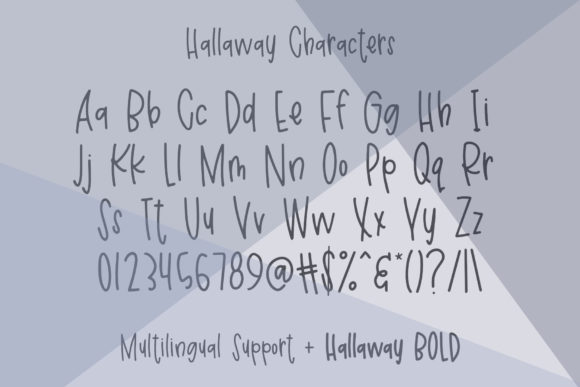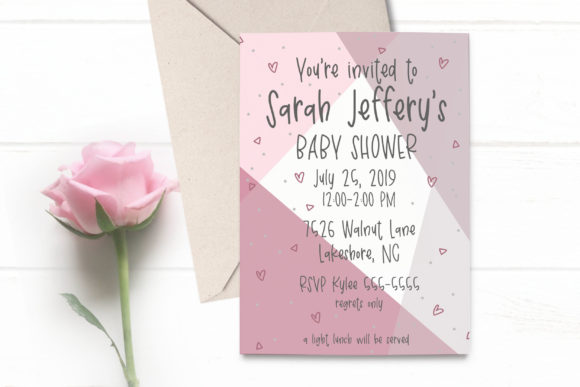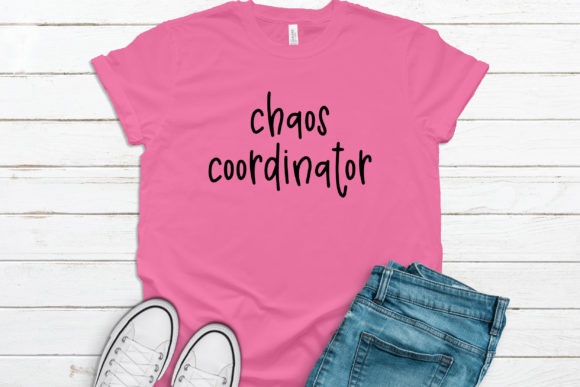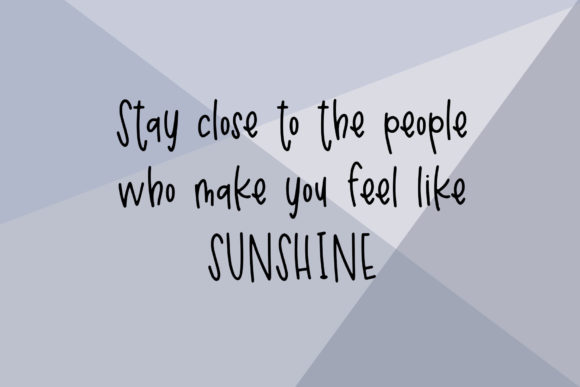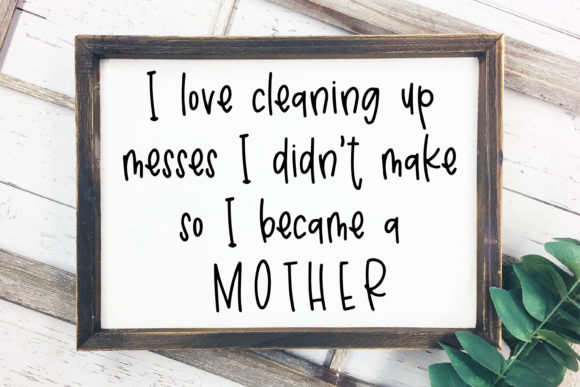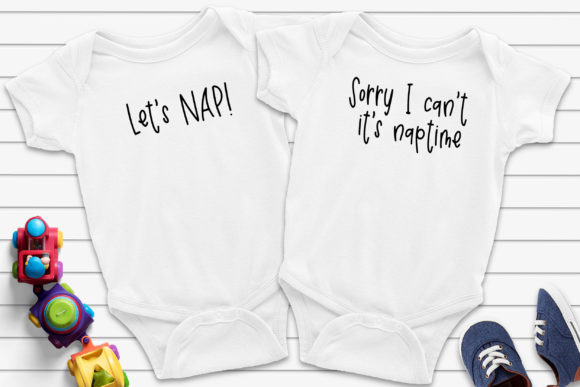
Introducing Hallaway Font: The Perfect Addition to Your Design Arsenal
Are you tired of using the same old fonts in your designs? Look no further! Hallaway Font is a cute and casual hand-lettered font that’s sure to add a touch of personality to your projects. In this article, we’ll dive into the features and benefits of Hallaway Font, and explore how you can use it to take your designs to the next level.
What is Hallaway Font?
Hallaway Font is a hand-lettered font that’s perfect for designers and crafters looking for a unique and playful way to add character to their work. With its casual and approachable vibe, Hallaway Font is ideal for a wide range of design projects, from party invitations and greeting cards to website headers and product labels.
Key Features of Hallaway Font
- Cute and Casual Design: Hallaway Font features a playful and informal design that’s sure to add a touch of whimsy to your projects.
- Hand-Lettered Style: With its hand-lettered style, Hallaway Font has a personal and unique feel that’s perfect for designers looking to add a human touch to their work.
- Regular and Bold Weights: Hallaway Font comes in both regular and bold weights, giving you flexibility and versatility in your designs.
- Easy to Read: Despite its playful design, Hallaway Font is easy to read and understand, making it perfect for use in body text and headings.
Use Cases for Hallaway Font
So, how can you use Hallaway Font in your designs? The possibilities are endless! Here are a few ideas to get you started:
- Party Invitations: Add a playful touch to your party invitations with Hallaway Font. Use it to create custom invitations for birthdays, baby showers, and other celebrations.
- Websites and Blogs: Use Hallaway Font to add a personal touch to your website or blog. It’s perfect for headings, titles, and other design elements.
- Product Labels: Add a touch of personality to your product labels with Hallaway Font. It’s perfect for packaging design, branding, and more.
- Greeting Cards: Create custom greeting cards for special occasions with Hallaway Font. It’s perfect for birthdays, holidays, and other celebrations.
Tips for Using Hallaway Font
Here are a few tips for using Hallaway Font in your designs:
- Mix and Match: Experiment with different font combinations by pairing Hallaway Font with other fonts. This can add visual interest and create a unique look.
- Play with Size and Color: Don’t be afraid to experiment with different sizes and colors of Hallaway Font. This can help create a hierarchy of information and add visual interest to your designs.
- Use it Sparingly: While Hallaway Font is a beautiful font, it’s best used sparingly. Use it for headings, titles, and other design elements to create a focal point.
In conclusion, Hallaway Font is a versatile and playful font that’s perfect for designers and crafters looking to add a touch of personality to their work. With its cute and casual design, hand-lettered style, and regular and bold weights, Hallaway Font is ideal for a wide range of design projects. Whether you’re creating party invitations, websites, product labels, or greeting cards, Hallaway Font is sure to become a go-to font in your design arsenal.